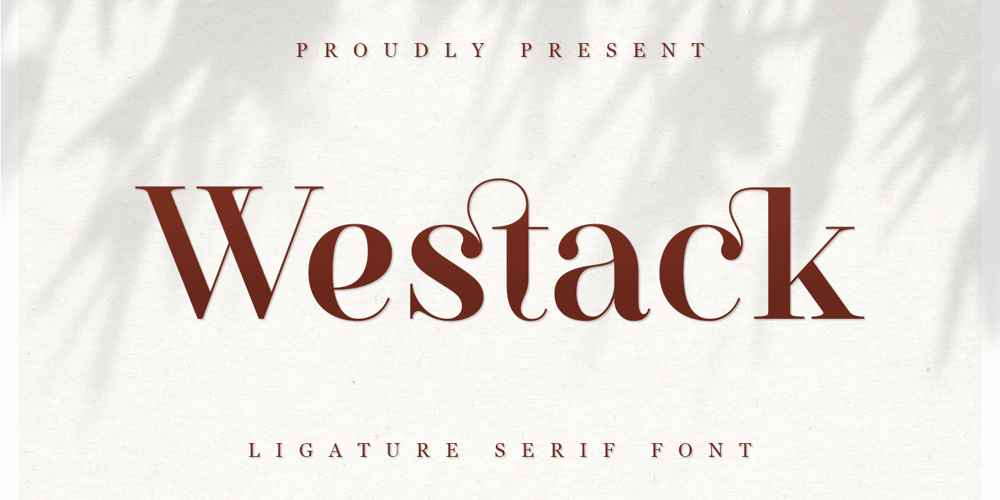
Westack
Westack font
Westack Font Family was designed by Abdul Malik Wisnu and published by Almarkha Type. Westack contains 1 styles and family package options. Introducing Westack – Modern Display Serif inspired by the famous minimalist logo, perfect for the purposes of designing templates, brochures, videos, advertising branding, logos and more.What’s Included :Westack (OTF/TTF)Standard glyphsLigaturesWeb FontInternational AccentWorks on PC & MacSimple installationsAccessible in the Adobe Illustrator, Adobe Photoshop, Adobe InDesign, even work on Microsoft Word. PUA Encoded Characters – Fully accessible without additional design software. Fonts include multilingual support+Image used : All photographs/pictures/vector used in the preview are not included, they are intended for illustration purpose only.Cheers!Thank You